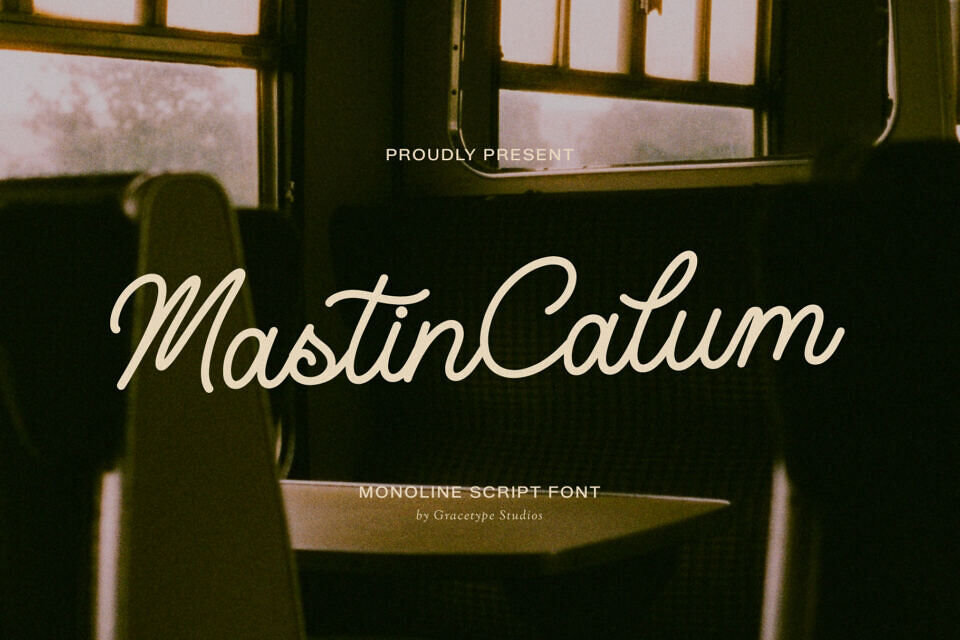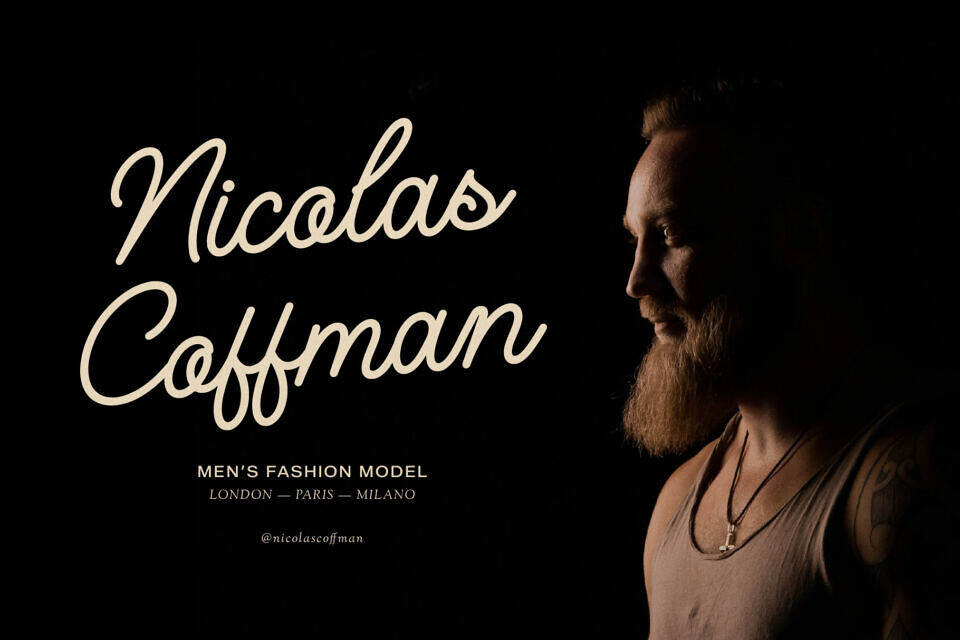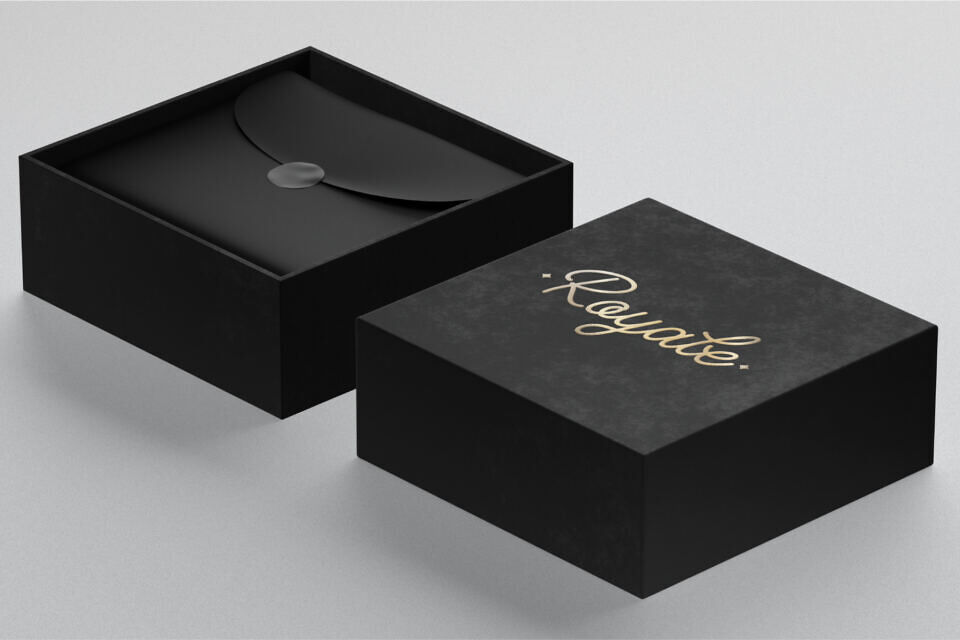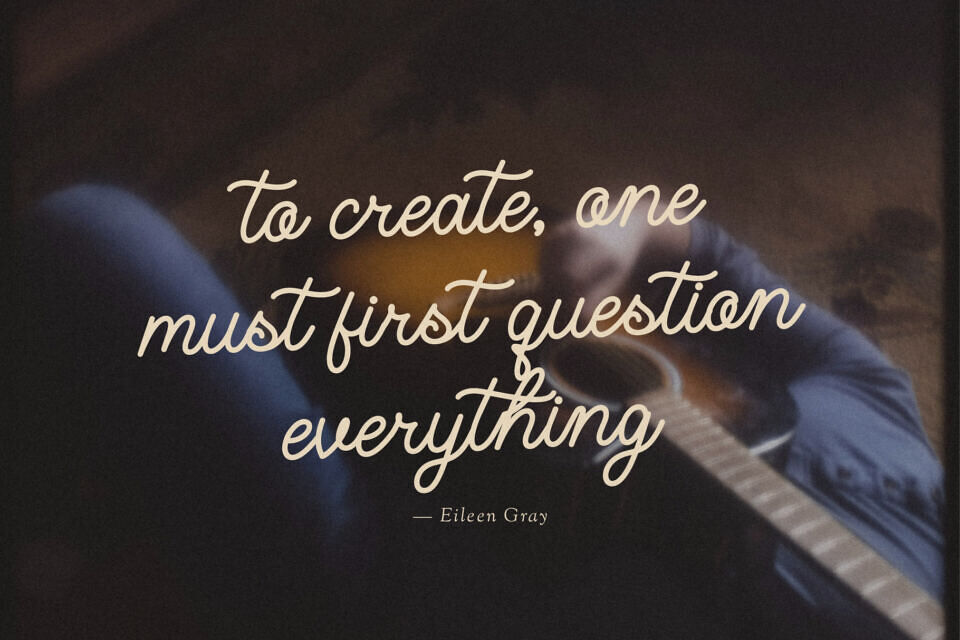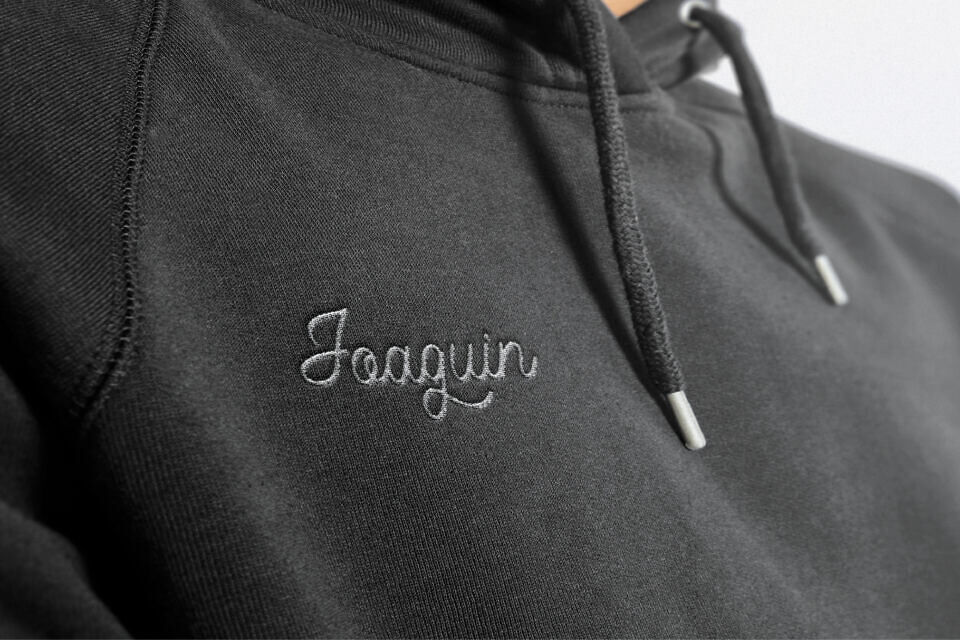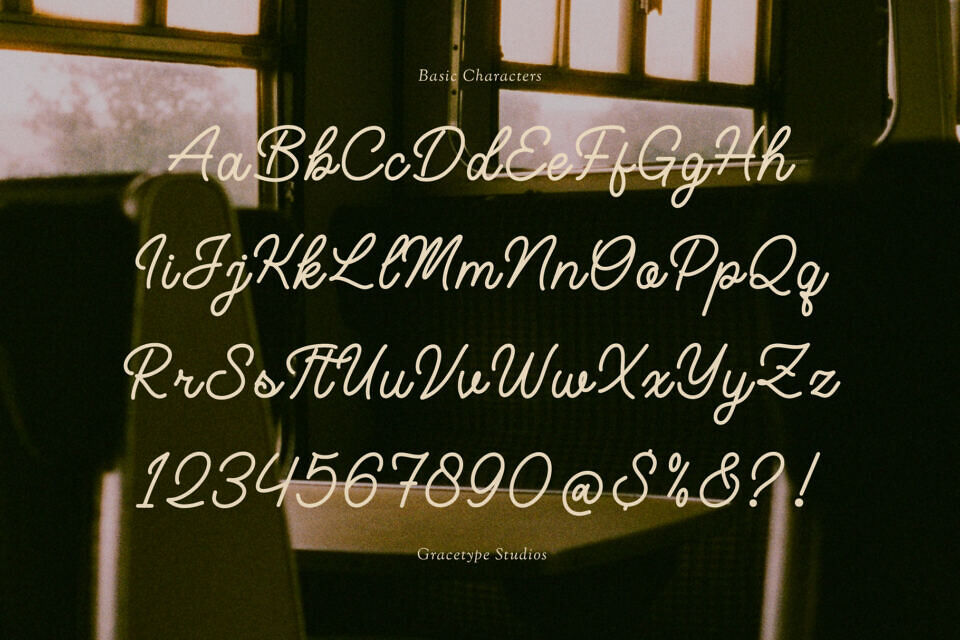
Mastin Calum Font
Evoke a sense of vintage warmth and timeless charm with Mastin Calum, a gorgeous monoline script font. Crafted with a perfectly balanced, uniform line weight, this typeface features smooth, rhythmic connections and beautifully rounded loops that echo the nostalgic aesthetic of mid-century hand lettering.
Its clean structure and gentle, elegant flow ensure excellent legibility while retaining an authentic, hand-drawn soul. Mastin Calum is an exceptional choice for creators looking to add a stylish, welcoming touch to their designs. It is perfectly suited for retro lifestyle branding, artisanal product packaging, cozy cafe logos, elegant quote graphics, wedding stationery, and sentimental greeting cards.